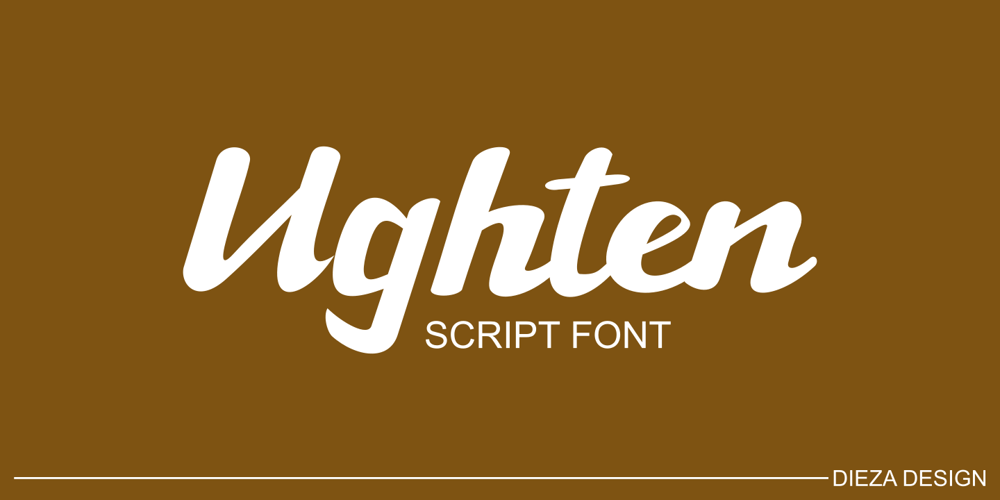
Ughten Font Family was designed by Rohmat Sidiq Mustaqim and published by Dieza Design. Ughten contains 1 styles and family package options. Meet Ughten – a script with a huge personality. Warm, amiable and organic, yet elegant, Ughten is perfect if you want to convey individuality and style. Ughten works easily together to create visually appealing logos, packaging, presentations, headlines or editorials.